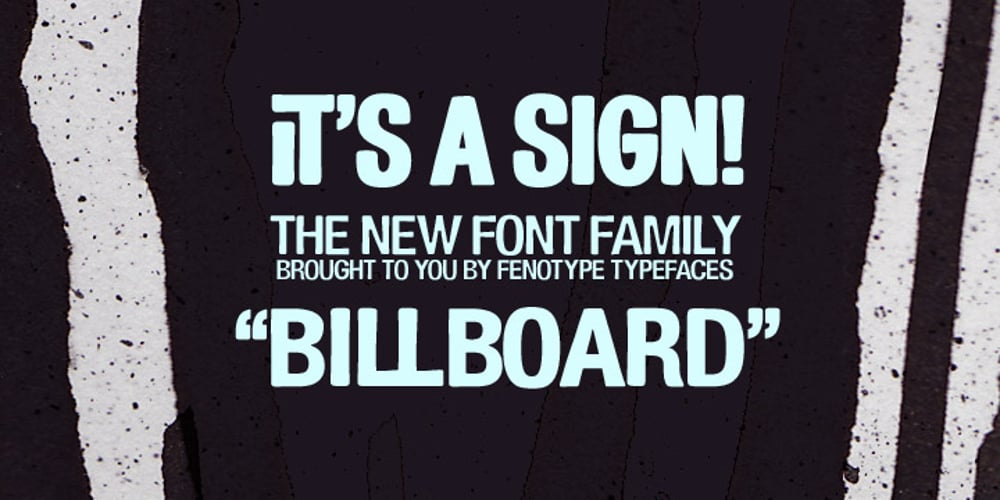
Billboard Font Family was designed by Emil Karl Bertell and published by Fenotype. Billboard contains 6 styles and family package options. Billboard is a swinging family of six fonts. The all-caps letters are soft and round but the letter shapes will keep your layout in order. The font has class-based kerning and automatic OpenType ligatures. To access the ligatures you only need to use an OpenType-aware application and write in CAPS.